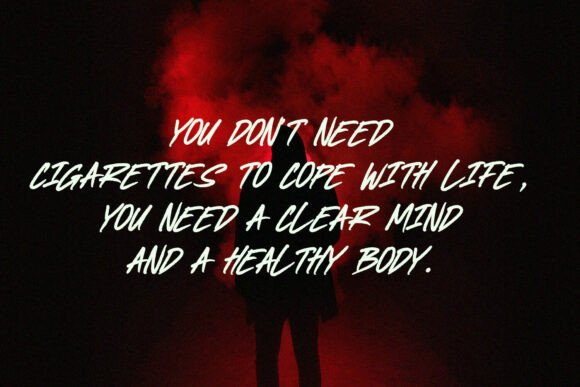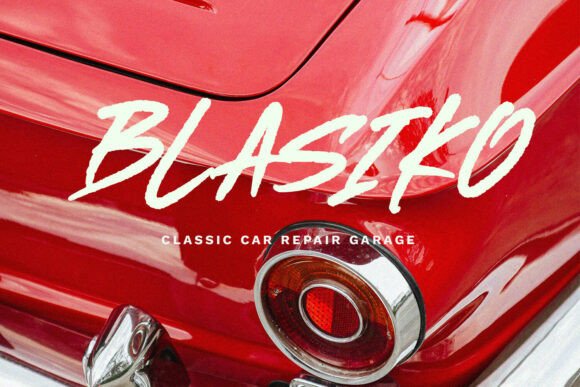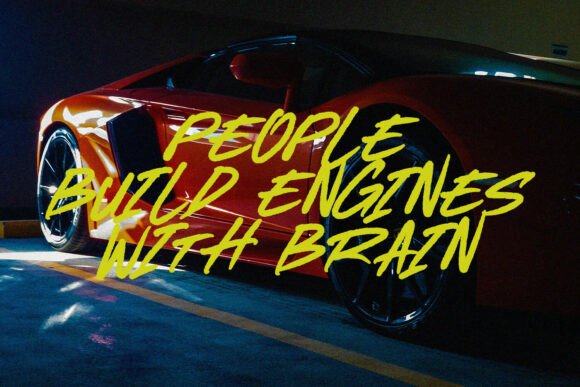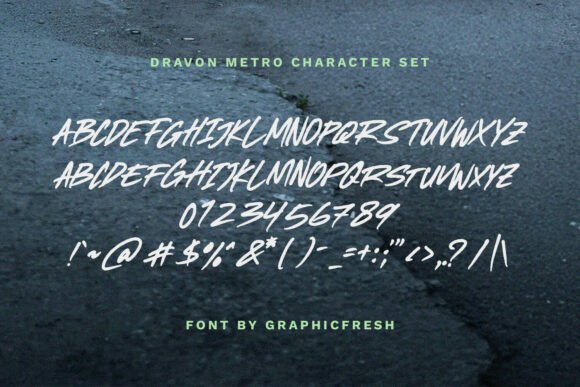
Dravon Metro Font: Unleash the Power of Handcrafted Authenticity in Your Designs
In the world of typography, a font can make or break a design. When it comes to creating a bold statement, designers often look for fonts that exude confidence, strength, and a touch of authenticity. This is where Dravon Metro Font comes in – a heavy, handcrafted brush font that embodies the raw energy of thick hand-painted lettering. In this article, we’ll dive into the features, benefits, and uses of Dravon Metro Font, and explore how it can elevate your designs to the next level.
The Making of Dravon Metro Font
Dravon Metro Font is built with bold strokes and intense texture, giving it a powerful structure that’s hard to ignore. The font’s handcrafted nature means that each letter is carefully crafted to deliver a unique, organic feel that’s reminiscent of traditional brush lettering. The bold strokes and expressive brush marks create a sense of movement and energy, making Dravon Metro Font perfect for designs that demand attention and impact.
Key Features of Dravon Metro Font
- Heavy and bold strokes: Dravon Metro Font features thick, heavy strokes that give it a commanding presence.
- Intense texture: The font’s texture adds a layer of depth and authenticity, giving it a handcrafted feel.
- Confident character: Dravon Metro Font exudes confidence and strength, making it perfect for designs that need to make a statement.
- Solid readability: Despite its bold nature, Dravon Metro Font remains highly readable, even at smaller sizes.
Uses of Dravon Metro Font
Dravon Metro Font is a versatile font that can be used in a variety of design applications, including:
- Branding and logos: Create a bold, memorable brand identity with Dravon Metro Font.
- Headlines and posters: Use Dravon Metro Font to create eye-catching headlines and posters that demand attention.
- Social media graphics: Add a touch of personality and authenticity to your social media graphics with Dravon Metro Font.
- Creative projects: From art projects to crafts, Dravon Metro Font is the perfect choice for designers and crafters looking to add a bold, handcrafted touch.
Benefits of Using Dravon Metro Font
So why choose Dravon Metro Font for your next design project? Here are just a few benefits:
- Instant impact: Dravon Metro Font grabs attention and makes a statement.
- Authenticity: The font’s handcrafted nature gives it a unique, authentic feel.
- Versatility: Dravon Metro Font can be used in a variety of design applications.
- Easy to read: Despite its bold nature, Dravon Metro Font remains highly readable.
Tips for Using Dravon Metro Font
To get the most out of Dravon Metro Font, here are a few tips:
- Use it boldly: Dravon Metro Font is designed to make a statement, so don’t be afraid to use it boldly.
- Experiment with colors: The font’s texture and bold strokes look great in a variety of colors.
- Pair it with contrasting fonts: Pair Dravon Metro Font with contrasting fonts to create visual interest.
Dravon Metro Font is a powerful, handcrafted brush font that’s perfect for designers and crafters looking to add a bold, authentic touch to their designs. With its heavy strokes, intense texture, and confident character, Dravon Metro Font is sure to make a statement. Whether you’re creating a brand identity, designing a poster, or crafting a social media graphic, Dravon Metro Font is the perfect choice. So why wait? Download Dravon Metro Font today and unleash the power of handcrafted authenticity in your designs!